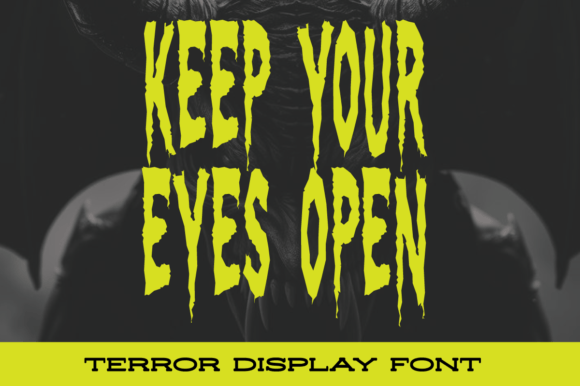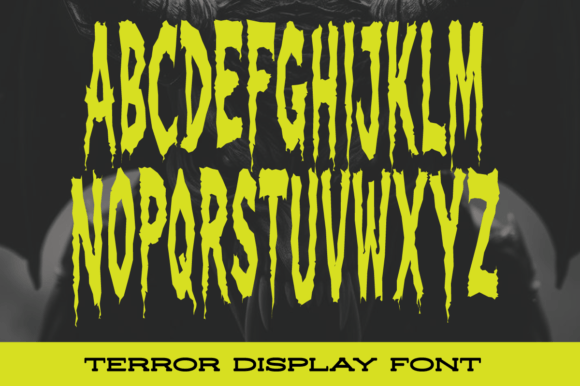
Demonzic Font: Unleash the Horror in Your Designs
Are you looking for a font that will send shivers down the spine of your audience? Look no further than Demonzic, a scary font style perfect for your most horrifying Halloween designs. This eerie font is designed to capture the raw essence of terror and fear, making it ideal for horror titles, haunted house posters, or any design meant to evoke death, decay, and eerie stillness.
The Perfect Font for Horror Enthusiasts
Demonzic is a carefully crafted font that embodies the spirit of Halloween. Its unique design features jagged edges, sharp points, and a distressed texture that gives it a haunting appearance. The font’s aesthetic is reminiscent of creepy horror movie titles, abandoned tombstones, and haunted mansions, making it a perfect fit for any design that requires a touch of horror.
Key Features of Demonzic Font
- Distressed Texture: The font features a distressed texture that gives it a worn, aged look, perfect for creating a sense of decay and neglect.
- Jagged Edges: The jagged edges and sharp points of the font add to its eerie and unsettling appearance.
- Unique Glyphs: Demonzic comes with a range of unique glyphs, including custom-designed characters that add to the font’s horror theme.
- Eerie Style: The font’s design is carefully crafted to evoke a sense of fear and unease, making it perfect for horror-themed designs.
Uses of Demonzic Font
Demonzic is a versatile font that can be used in a variety of designs, including:
- Horror Movie Titles: Create terrifying movie titles that will grab the attention of horror fans.
- Haunted House Posters: Design eye-catching posters for haunted houses, abandoned asylums, or creepy carnivals.
- Halloween Invitations: Create spooky invitations for Halloween parties, complete with eerie graphics and creepy text.
- Graphic Novels and Comics: Add a touch of horror to your graphic novels and comics with Demonzic’s eerie font style.
Why Choose Demonzic Font?
With so many fonts available, why choose Demonzic? Here are a few reasons why Demonzic stands out:
- Unique Design: Demonzic’s unique design sets it apart from other fonts, making it a standout choice for horror-themed designs.
- High-Quality: The font is carefully crafted to ensure high-quality output, even at large sizes.
Demonzic is a scary font style that’s perfect for designers and crafters looking to add a touch of horror to their designs. With its unique design, distressed texture, and eerie style, Demonzic is sure to capture the raw essence of terror and fear. Whether you’re creating horror movie titles, haunted house posters, or Halloween invitations, Demonzic is the perfect font for your most horrifying designs.